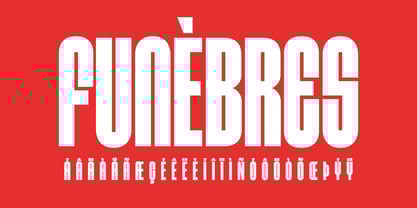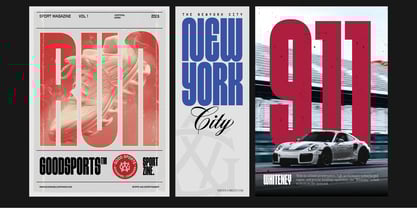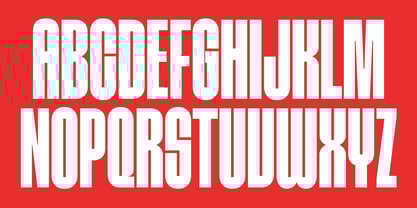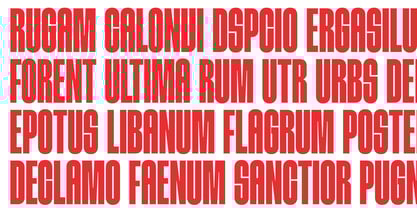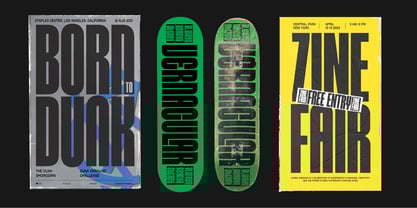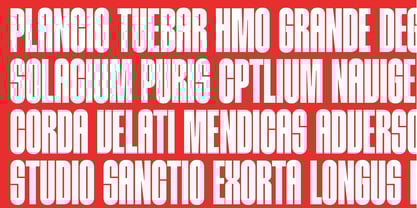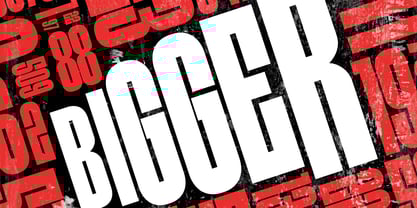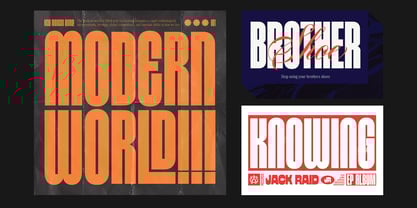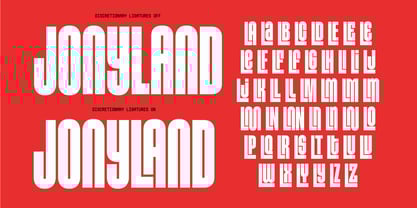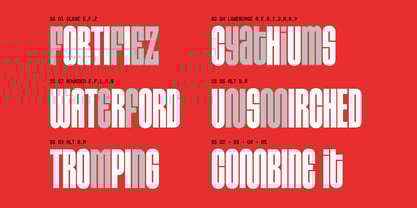
GW Pleasance
by Goodwheel Studio
The GW Pleasance Font Family was designed by Akbar Gumelar and published by Goodwheel Studio. GW Pleasance contains 1 styles. More about this family
Ultra Bold Condensed Display font with 5 character alternates
- 68 Languages Support
- Discretionary Ligatures
- 5 Stylistic Sets